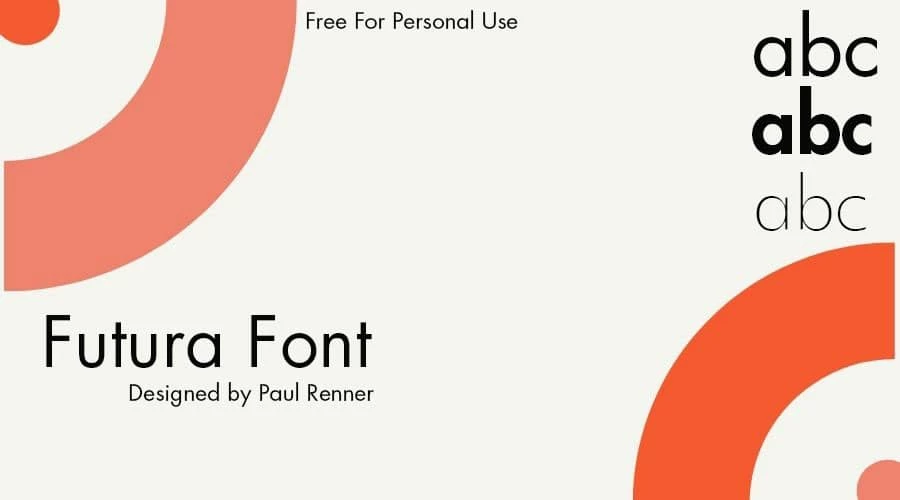
The Futura font is a neo-grotesque sans-serif typeface designed in 1927 by Paul Renner and presented by the Bauer Type Foundry in 1928. It is thought to be the most important typeface to come out of the Bauhaus movement in Germany. The original drawings were sketched by Paul Renner and based on simple shapes such as circles, triangles, and squares. Using Bauer’s design office, he was able to turn these geometric shapes into a family of sturdy, active typefaces. In the past, Renner has made the Futura fonts even better, so that they are even more clear.
It is one of the most popular typefaces of the 20th century. It also contributed to the New Frankfurt project, which has remained popular in graphic design for more than 80 years. The font’s name comes from the word “futurism,” meaning it’s a typeface for the future.
It is characterized by its clean lines and lack of decorative features. The font family consists of five weights (near black, book, medium-thin, thin, and light) with matching oblique versions. The Futura font has been used in architectural signs and company logos for over 100 years.
Ans: Since the day it was released, this typeface has been used in many notable places. Because of its high readability, it enhances the looks of many designs.